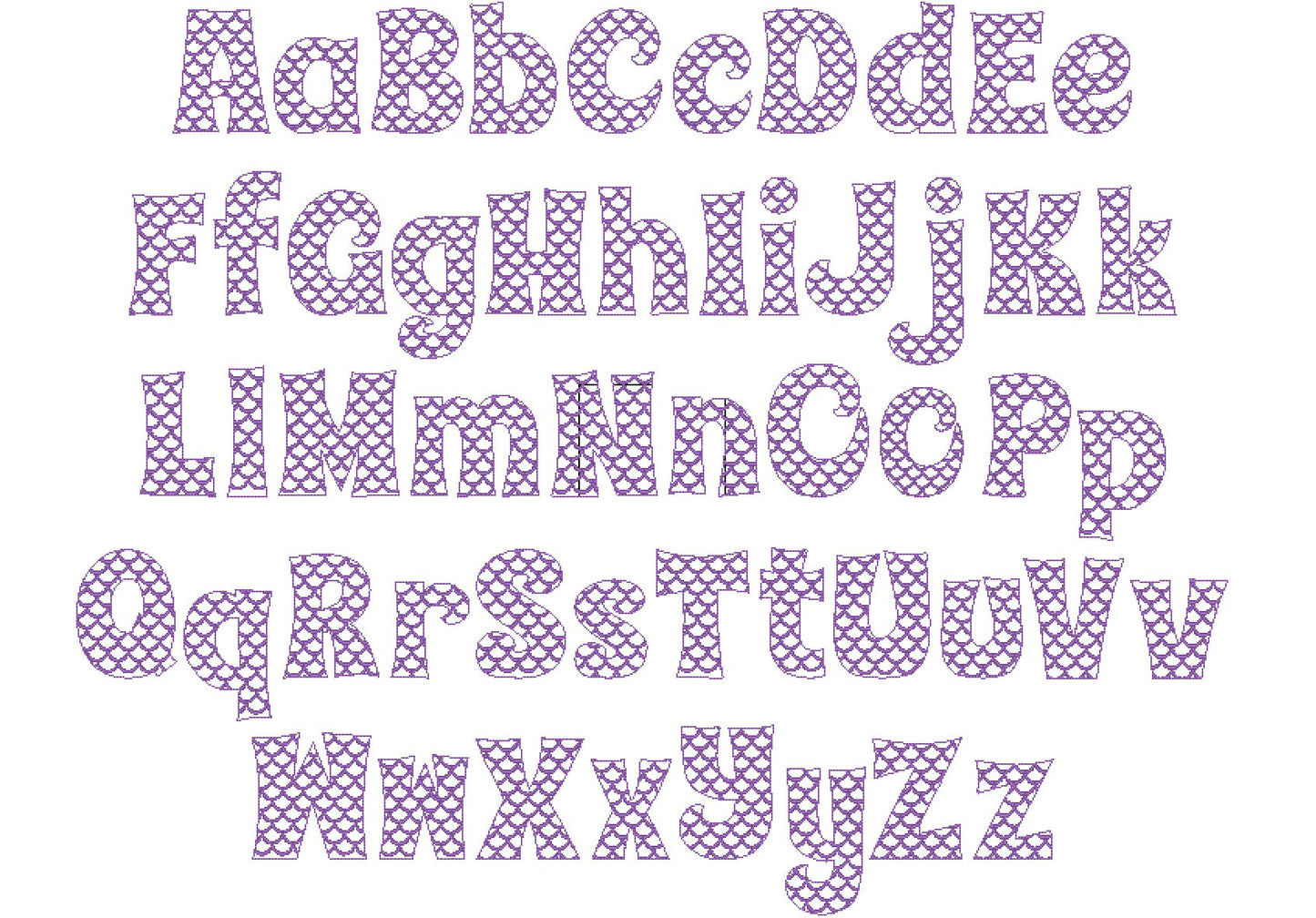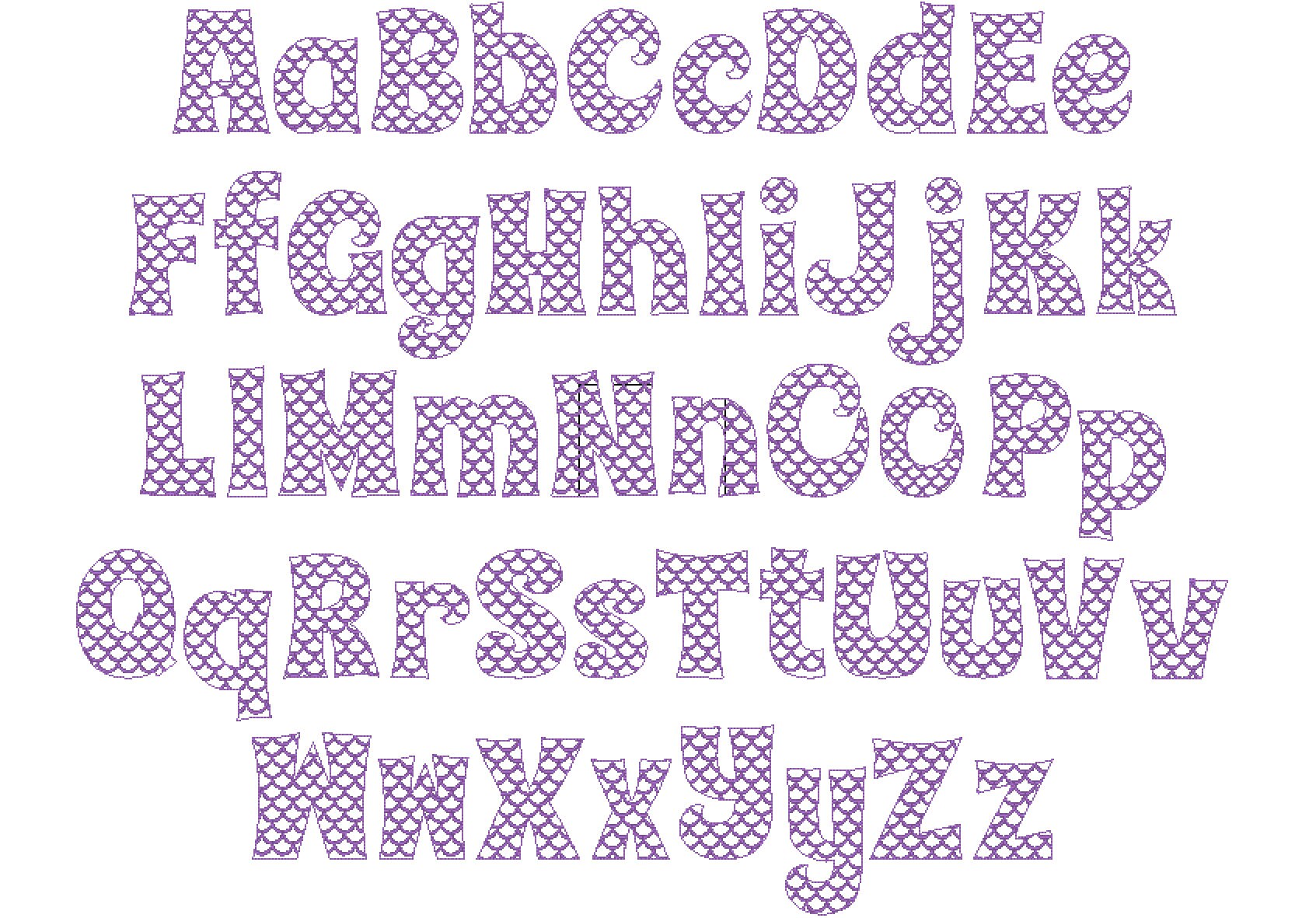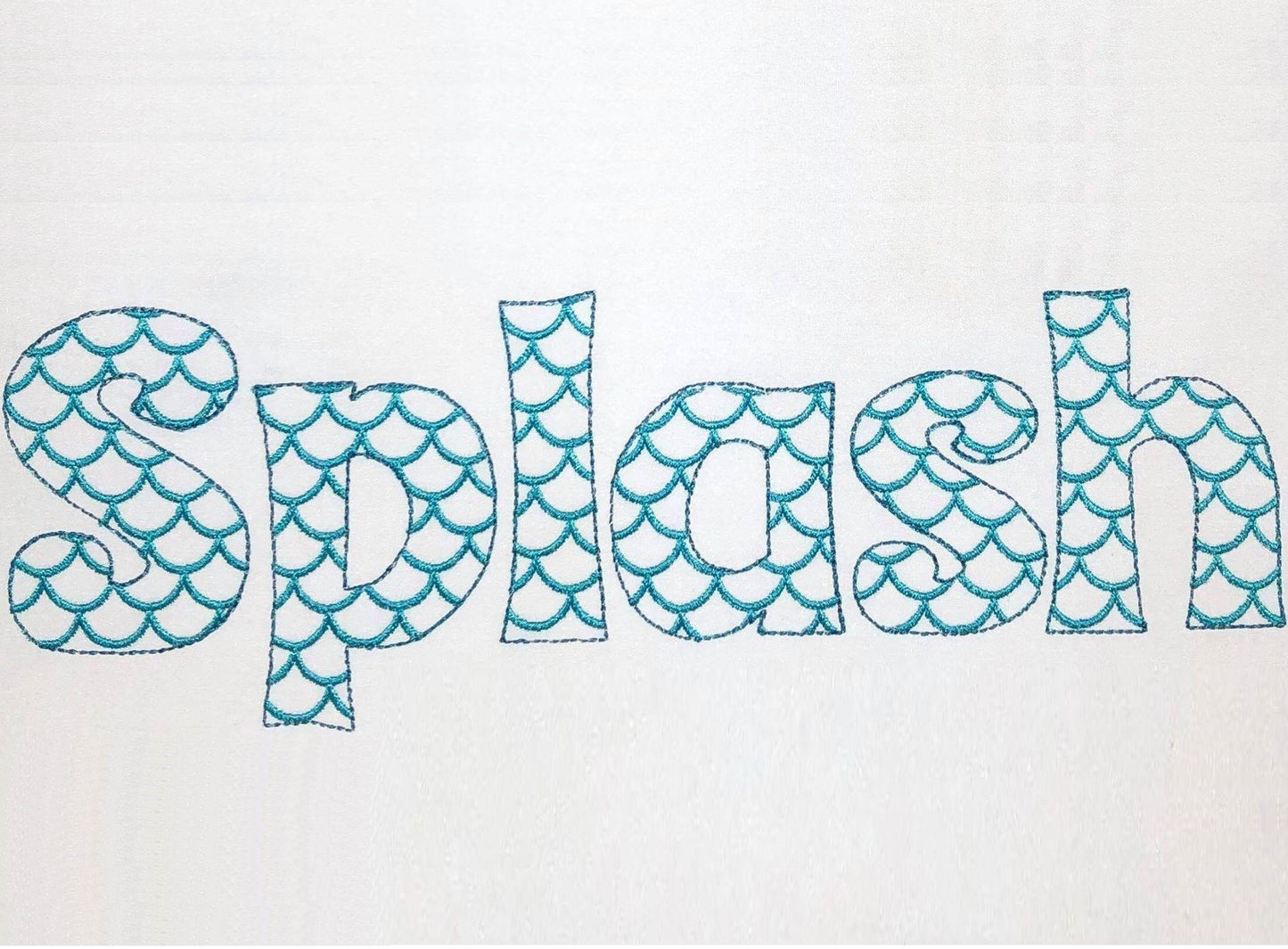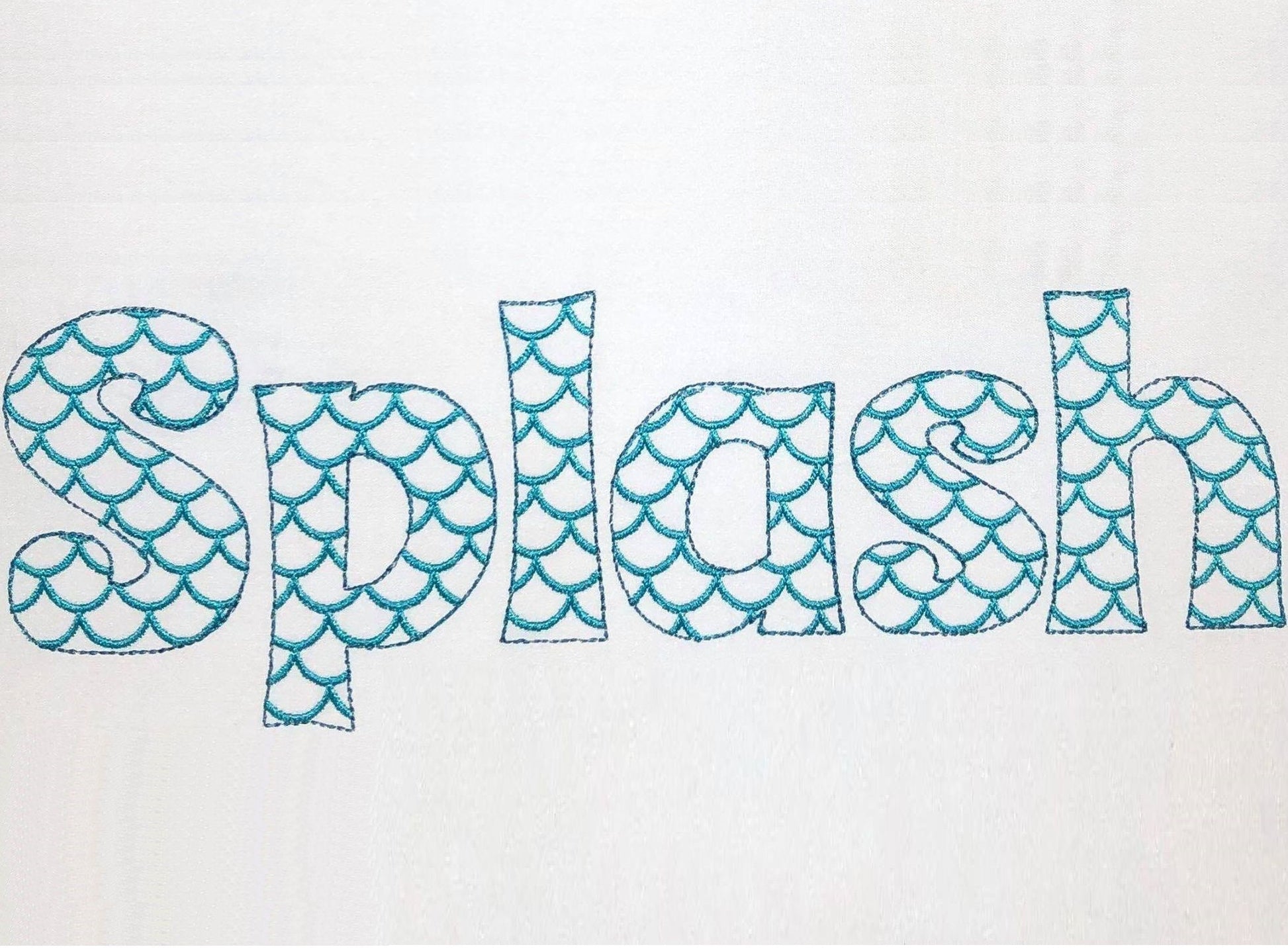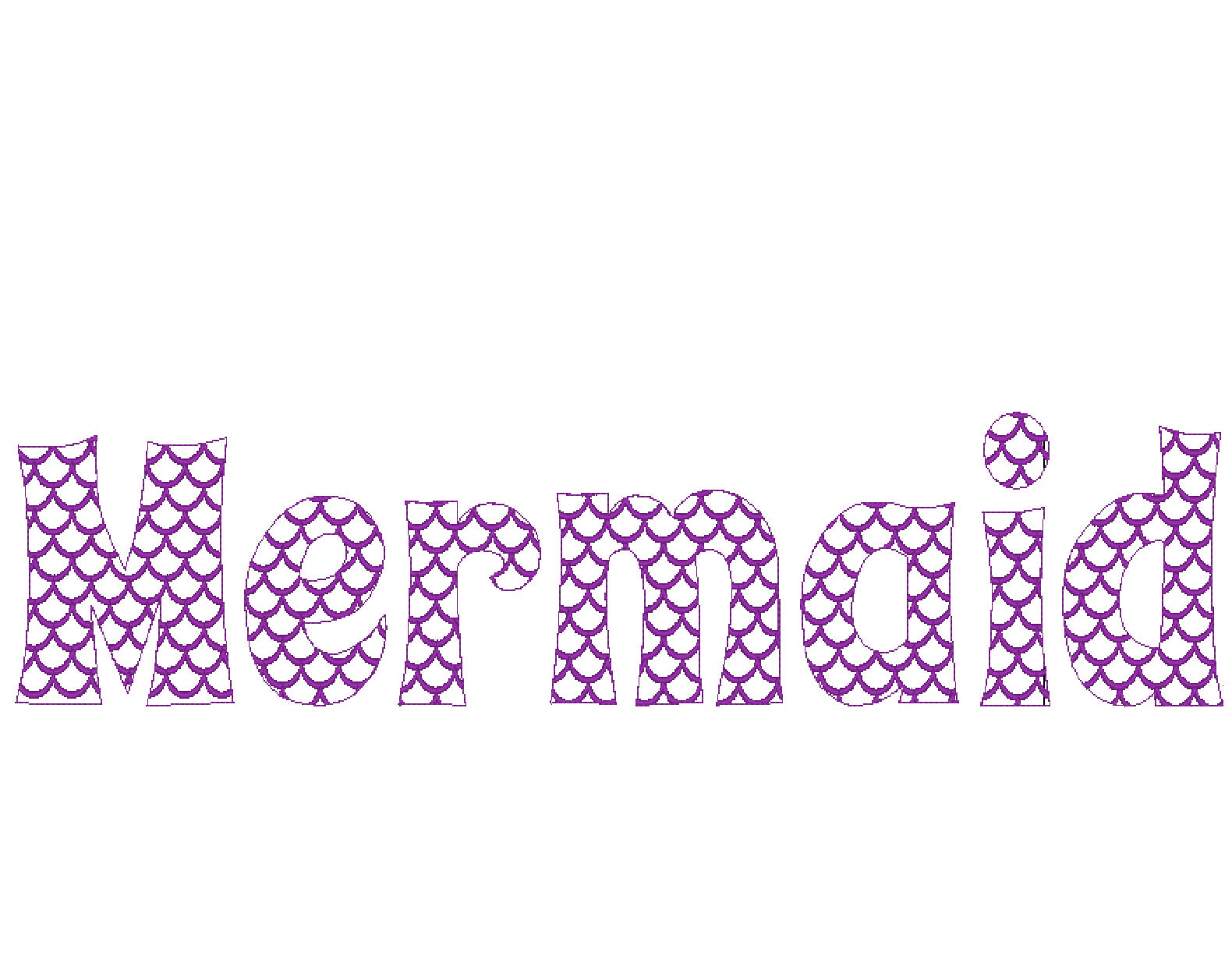
Or click to open the linkA scalloped mermaid tail font, open inside with satin scallops and a bean stitch outline. Magical for girls' names on shirts, towels and beach bags.
Uppercase and lowercase letters in six sizes: 2, 2.5, 3, 3.5, 4 and 4.5 inches. The scallops are satin stitch and the letter shape stays open, so the fabric shows through.